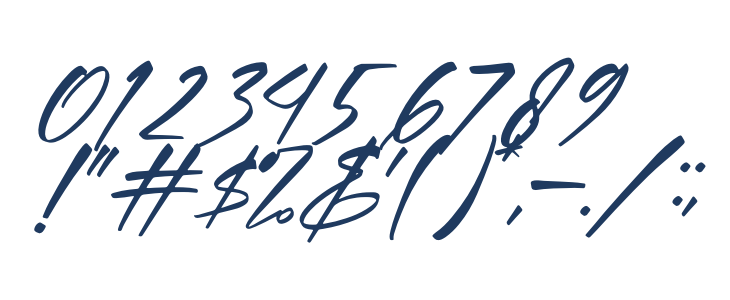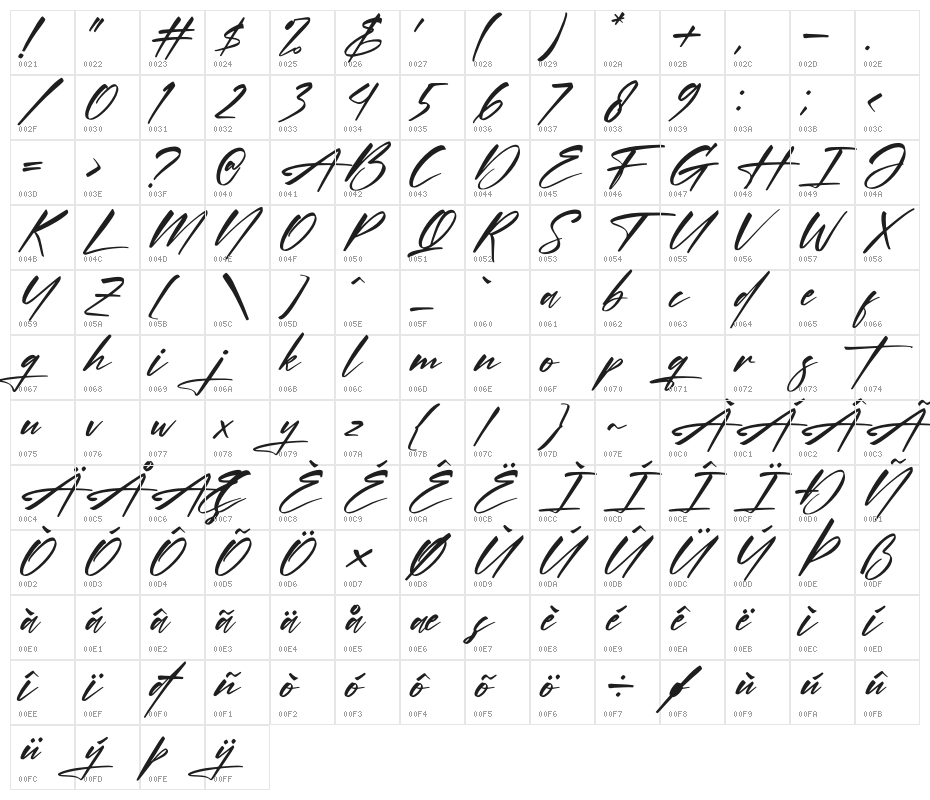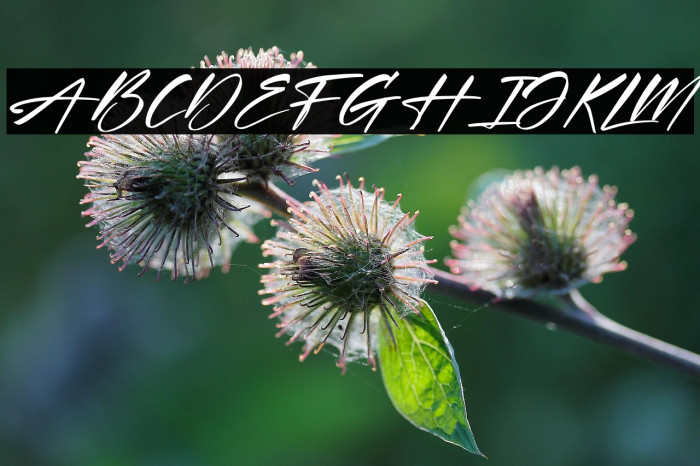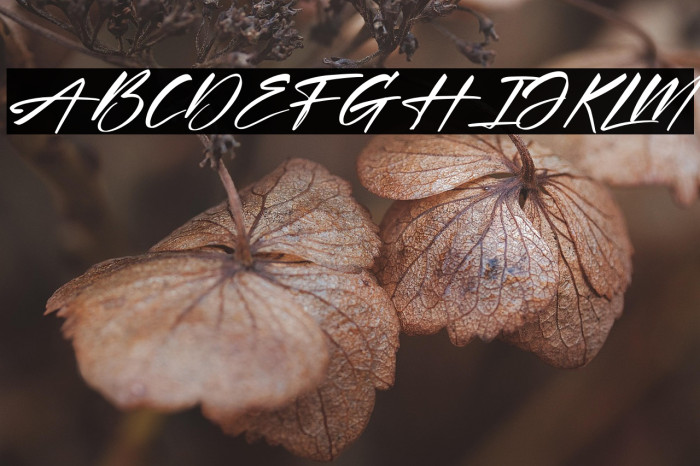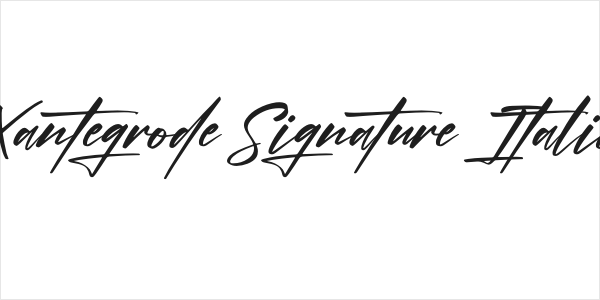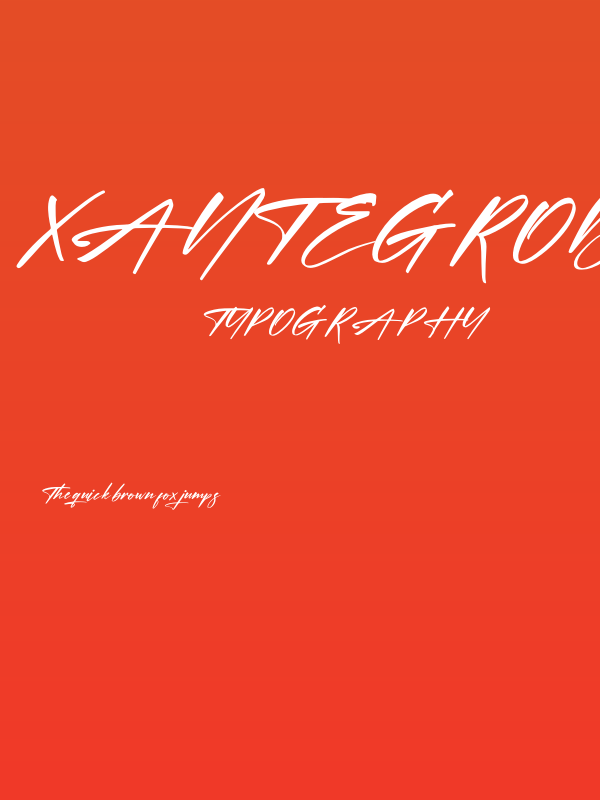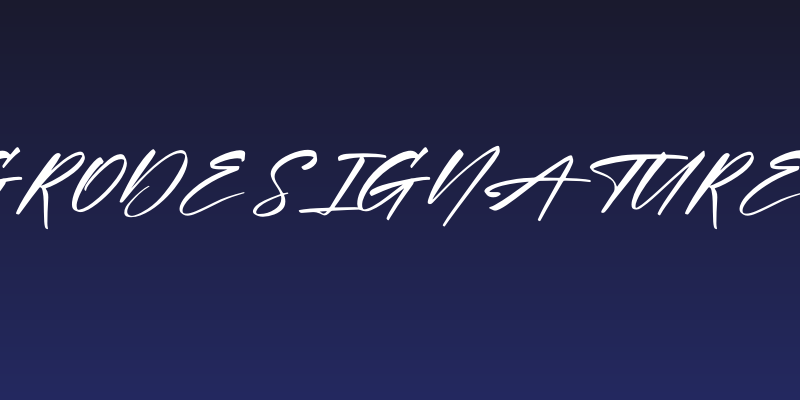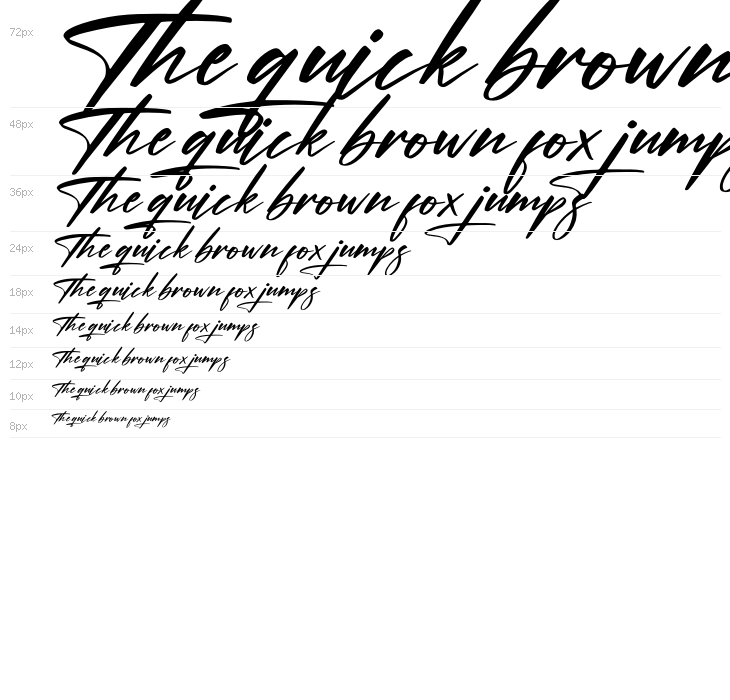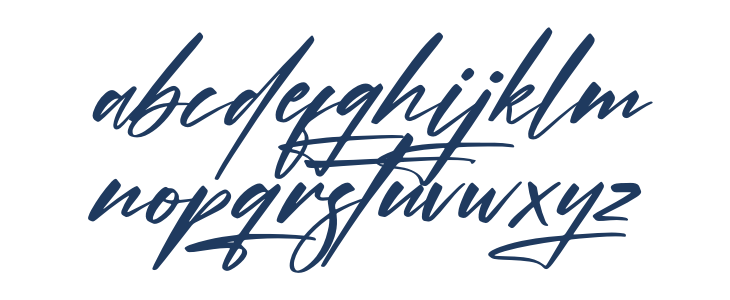
Xantegrode Signature Italic Font
Xantegrode Signature Italic Description
This font exudes a dynamic and fluid style, characterized by its cursive, handwritten appearance. The letters are elegantly slanted, giving a sense of motion and grace. The strokes are smooth and continuous, with a natural flow that mimics the swift movement of a pen. The uppercase letters are bold and prominent, while the lowercase letters maintain a consistent rhythm and balance. The numbers and special characters are crafted with the same attention to detail, ensuring a cohesive look across all elements. This font is perfect for adding a personal touch to any project, with its stylish and sophisticated aesthetic.